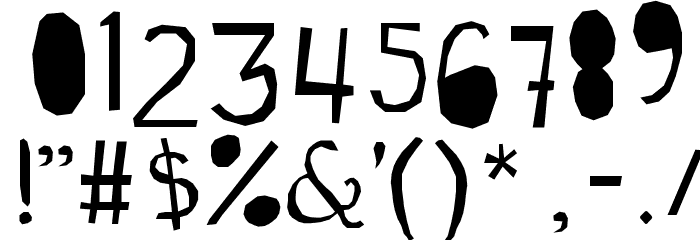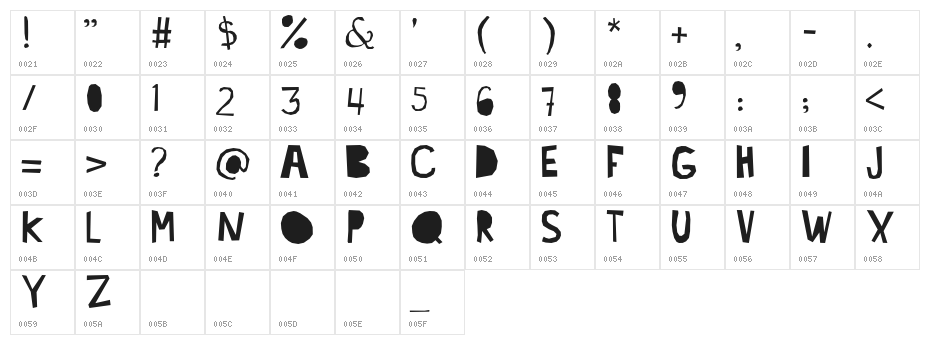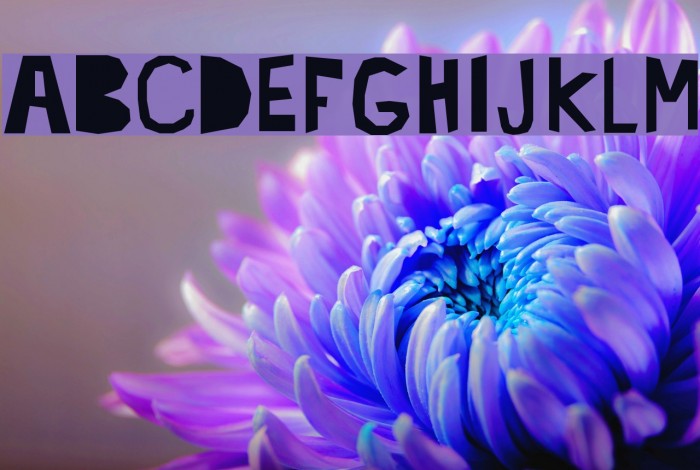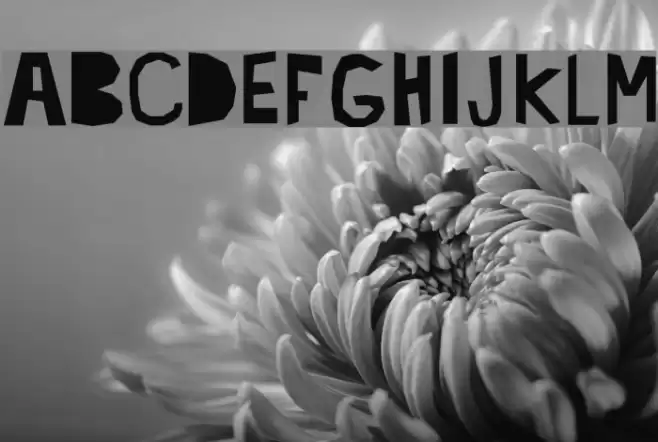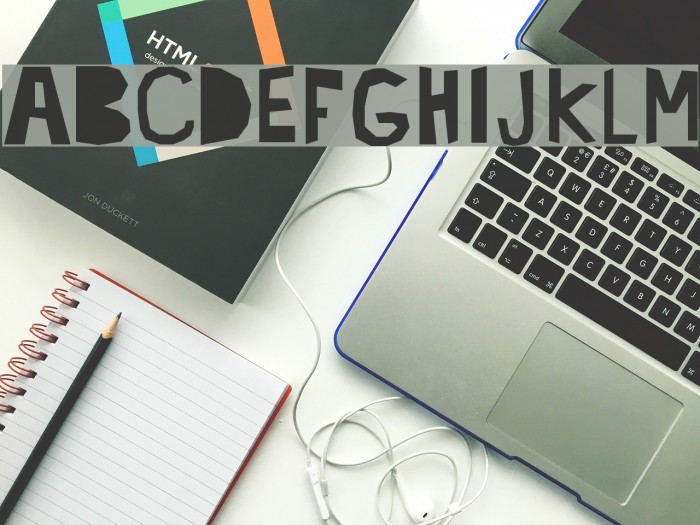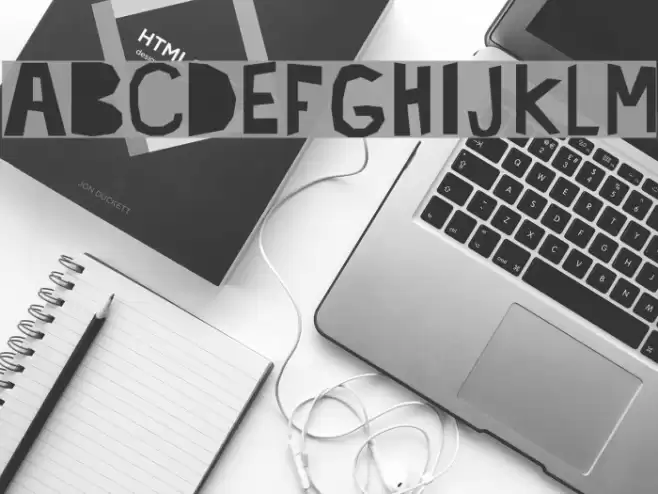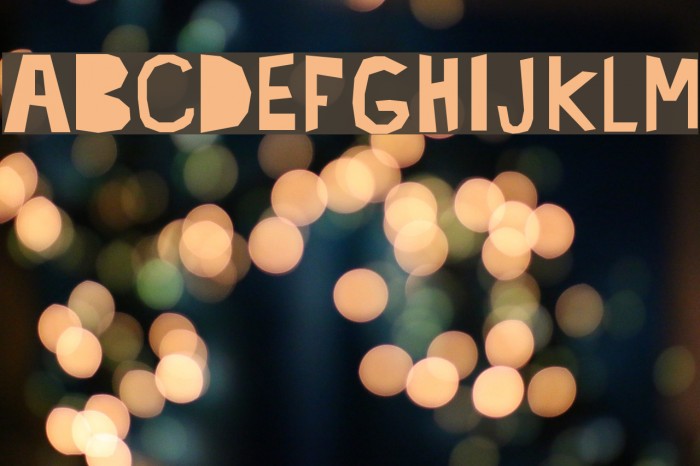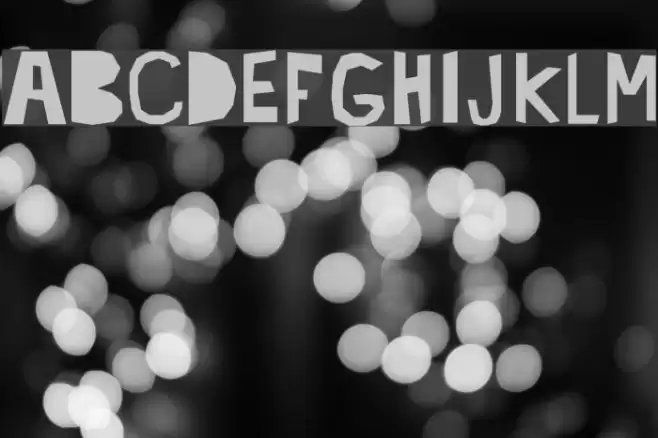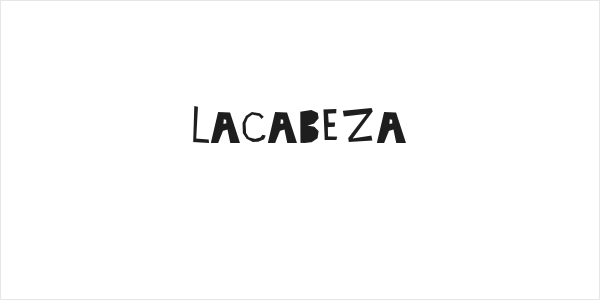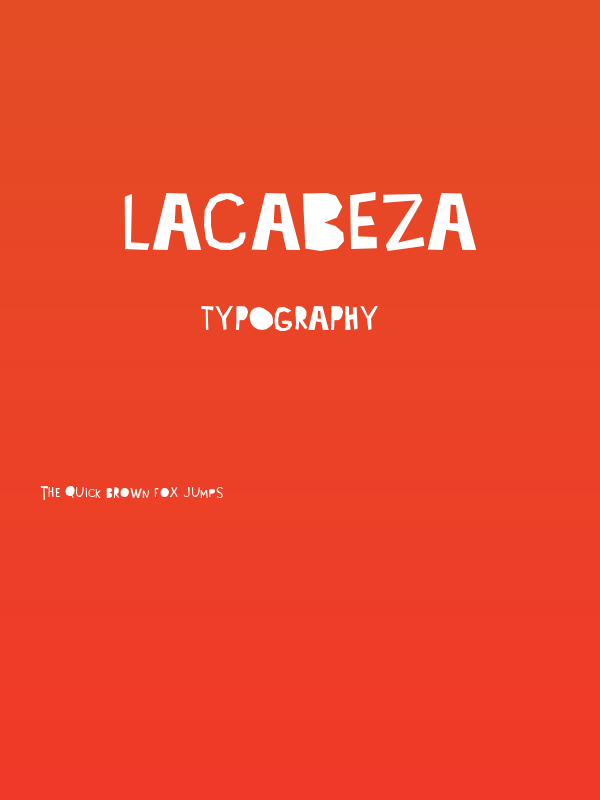
lacabeza Font
lacabeza Description
This font features a bold and irregular style, with each character appearing as if it has been hand-cut from paper. The uppercase letters are particularly striking, with a mix of sharp angles and rounded edges that create a dynamic and playful appearance. The lowercase letters maintain this quirky aesthetic, offering a unique take on traditional letterforms. Numbers and special characters follow the same design principles, ensuring consistency across the entire typeface. The overall look is both artistic and unconventional, making it ideal for projects that require a distinctive and eye-catching font.
Proposed ProjectsIdeal for artistic projects, children's book covers, creative posters, and branding that requires a unique and playful touch.